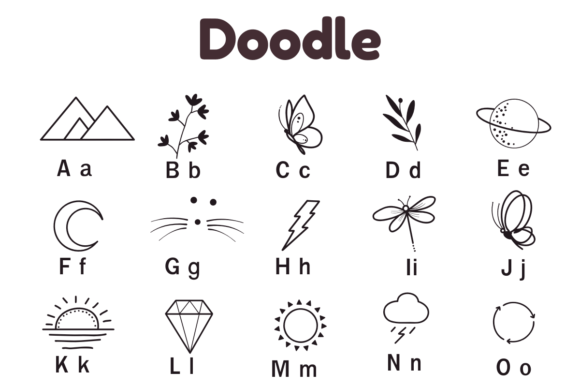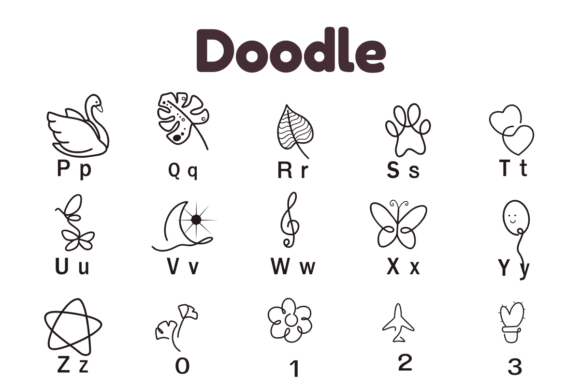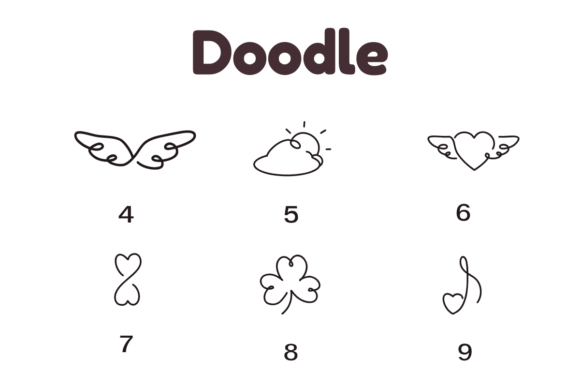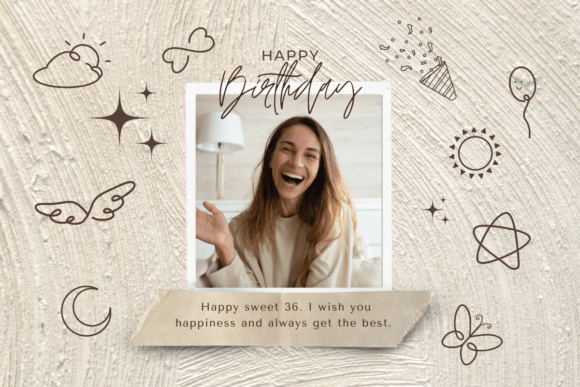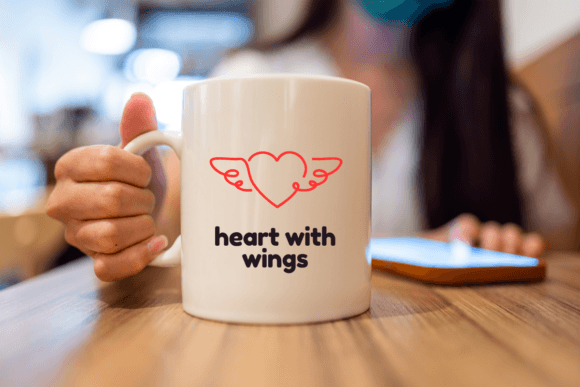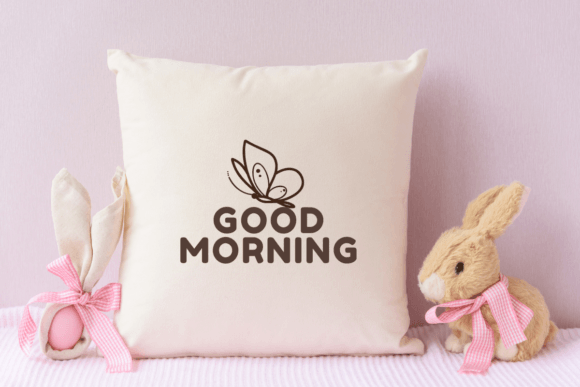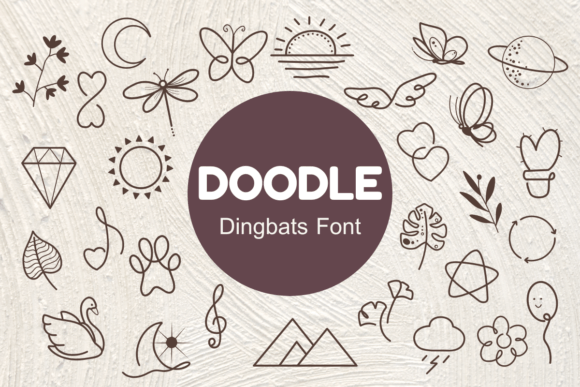
Doodle Font: Unleash Your Creativity with this Sketchy Dingbats Font
Are you a designer, crafter, or DIY enthusiast looking for a unique and creative way to add a personal touch to your projects? Look no further than the Doodle Font, a dingbats font with a theme that features a delightful sketch style. This versatile font is perfect for a wide range of creative projects, from wedding invitations and crafts to decorations, logos, and so much more.
What is Doodle Font?
Doodle Font is a type of dingbats font, which is a category of fonts that feature symbols, icons, and illustrations rather than traditional letterforms. This font is designed to mimic the look of hand-drawn doodles, with a playful and whimsical style that’s sure to add a touch of personality to any project. The Doodle Font features a wide range of illustrations and symbols, including shapes, icons, and decorative elements that can be used to enhance your designs.
Uses for Doodle Font
The possibilities are endless when it comes to using Doodle Font in your creative projects. Here are just a few ideas to get you started:
• Wedding Invitations: Add a personal touch to your wedding invitations with Doodle Font’s beautiful illustrations and symbols. Use it to create custom wedding stationery, including save-the-date cards, RSVP cards, and thank-you notes.
• DIY Crafts: Doodle Font is perfect for DIY crafters who love to create handmade cards, gift tags, and other paper crafts. Use it to add a decorative touch to your projects and make them stand out.
• Decorations: Use Doodle Font to create custom decorations for parties, events, and special occasions. From garlands and banners to signs and posters, this font is sure to add a playful touch to your decor.
• Logos and Branding: Doodle Font can also be used to create custom logos and branding materials for businesses and organizations. Its unique and playful style makes it perfect for companies that want to stand out and showcase their personality.
Benefits of Using Doodle Font
So why choose Doodle Font for your creative projects? Here are just a few benefits of using this versatile font:
• Unique and Playful Style: Doodle Font features a one-of-a-kind sketch style that’s sure to add a touch of personality to your projects.
• Versatile: This font can be used for a wide range of creative projects, from wedding invitations and crafts to decorations and logos.
• High-Quality Illustrations: The font features high-quality illustrations and symbols that are sure to enhance your designs.
Tips for Using Doodle Font
Here are a few tips for using Doodle Font in your creative projects:
• Experiment with Different Sizes and Colors: Don’t be afraid to experiment with different sizes and colors when using Doodle Font. This will help you find the perfect look for your project.
• Mix and Match Illustrations: Doodle Font features a wide range of illustrations and symbols. Mix and match these elements to create unique and interesting designs.
• Use it with Other Fonts: Doodle Font can be paired with other fonts to create interesting and dynamic designs. Experiment with different font combinations to find the perfect look for your project.